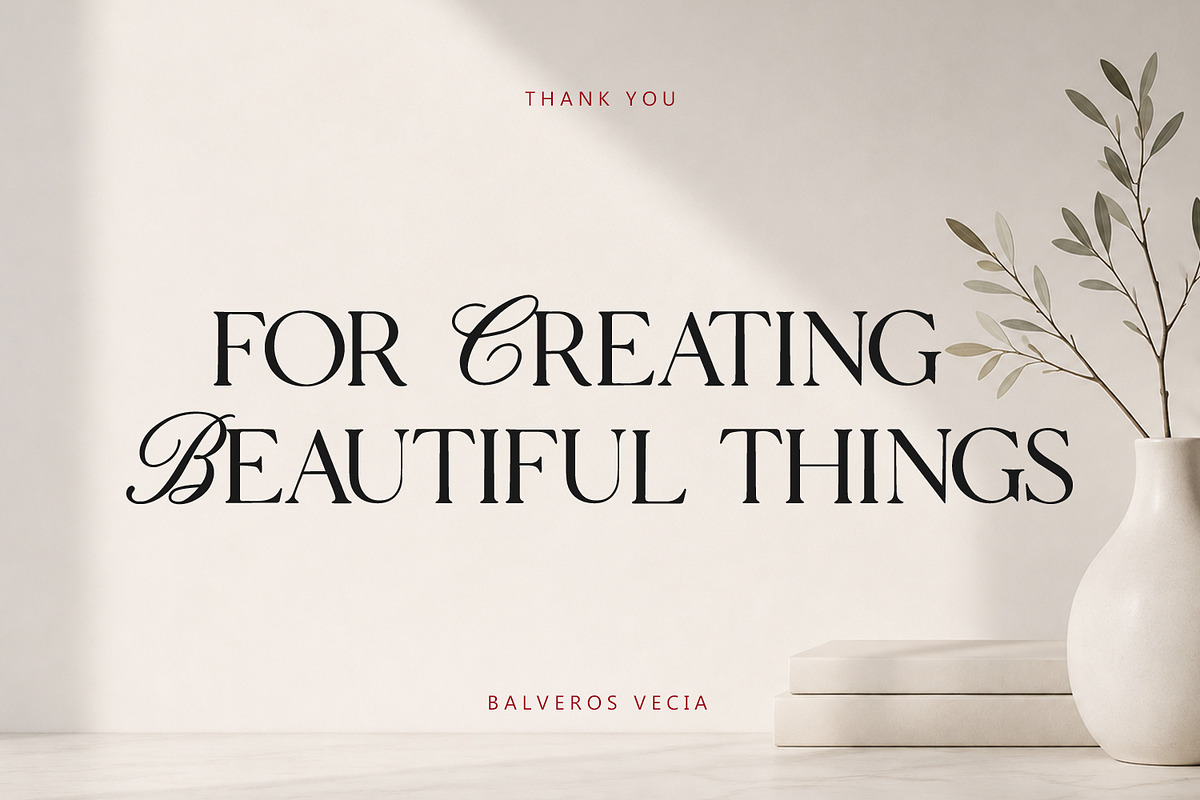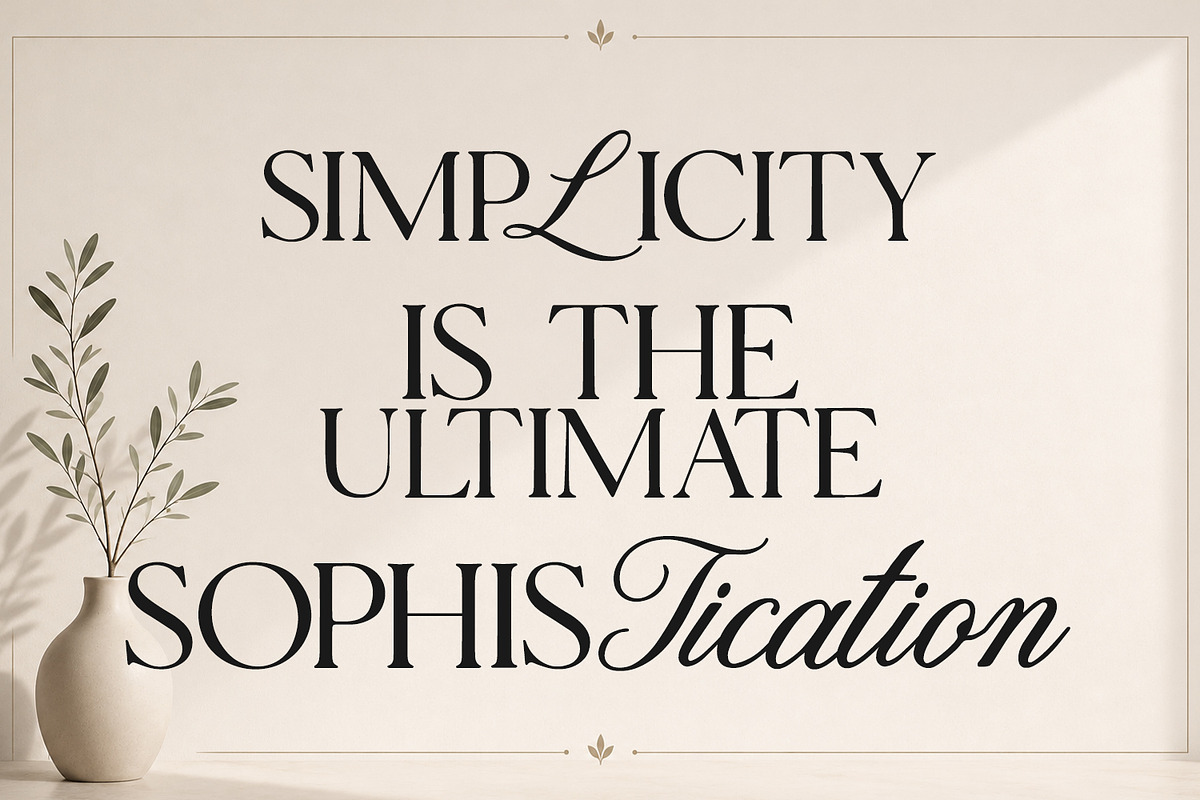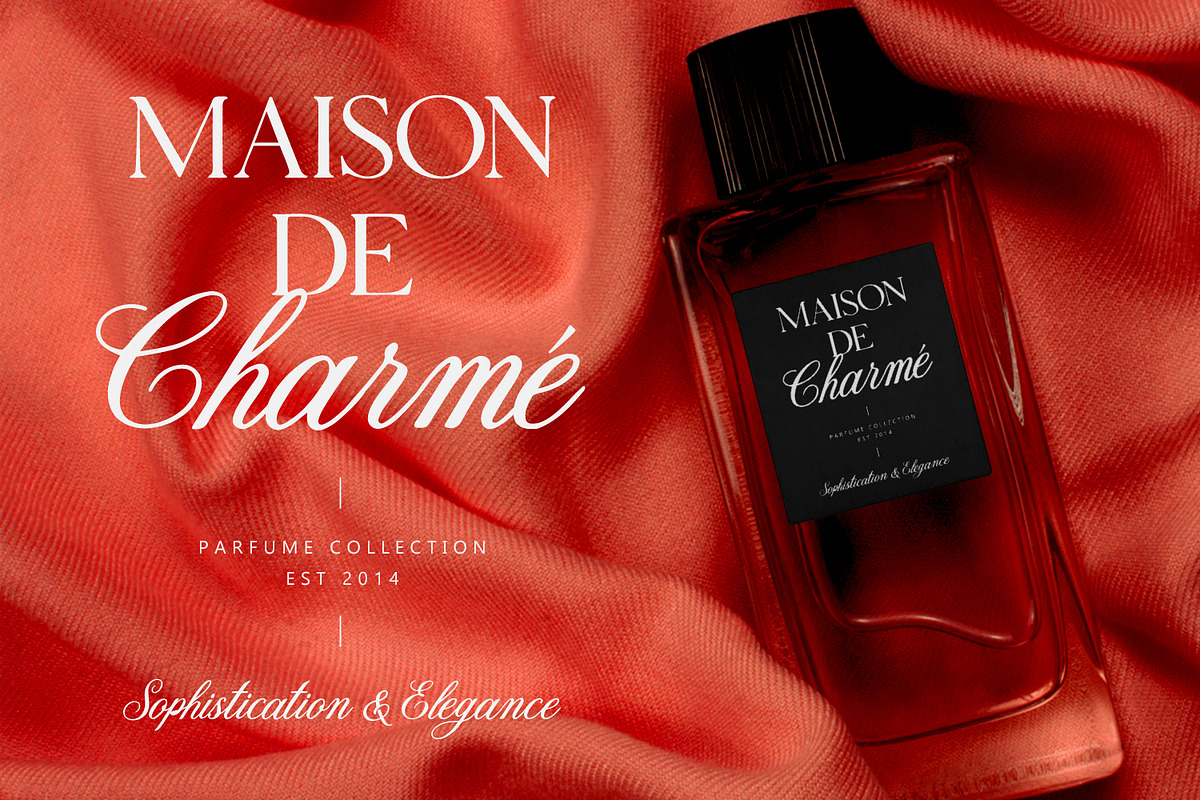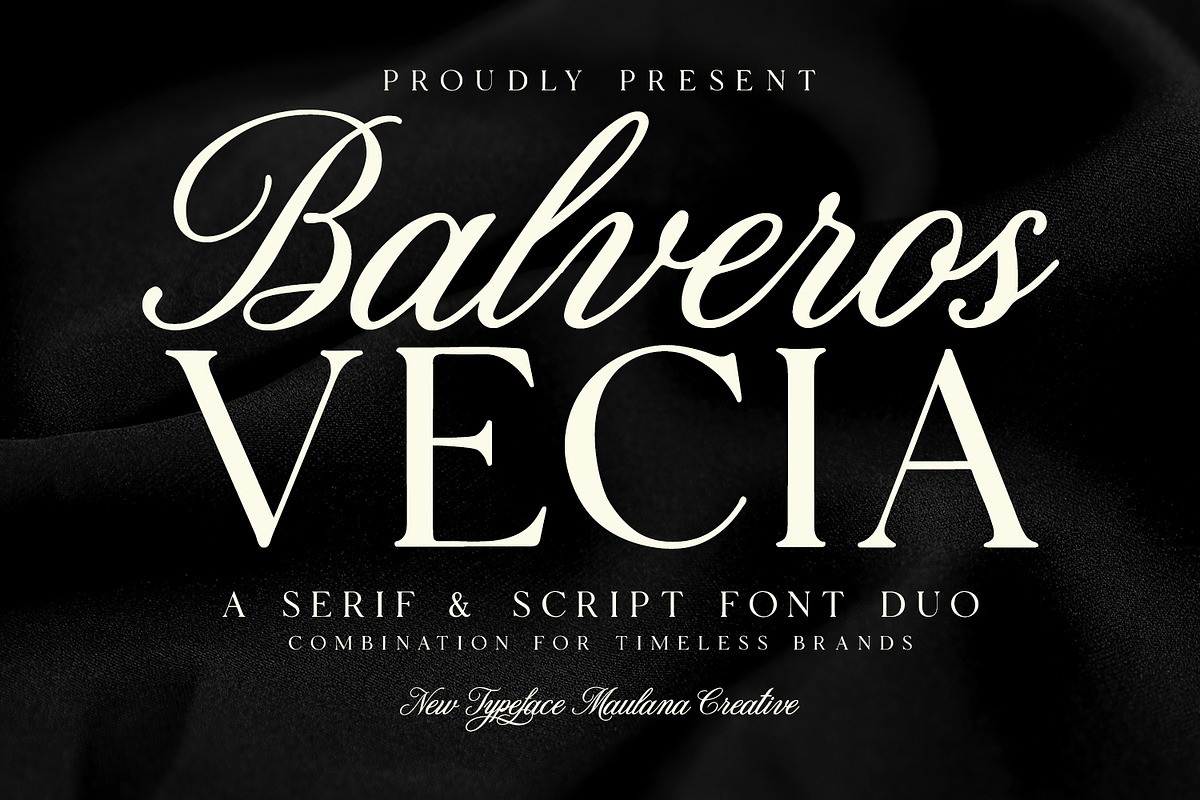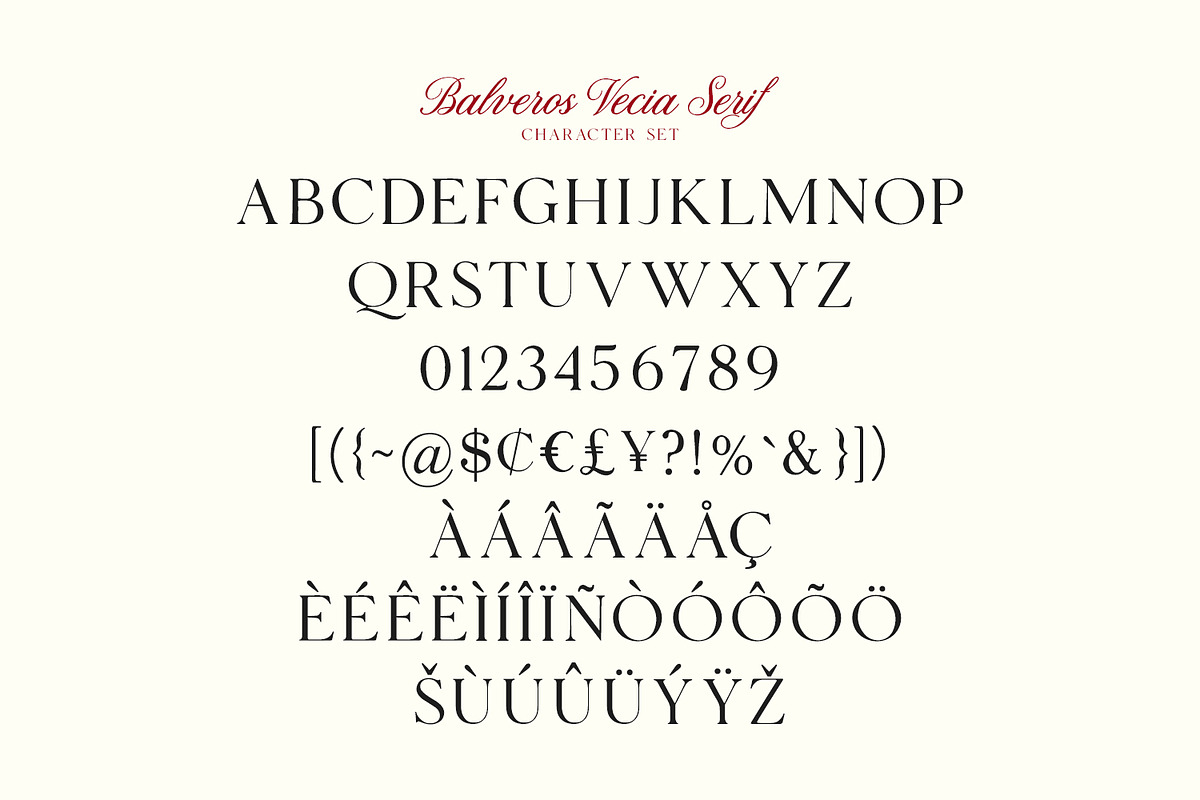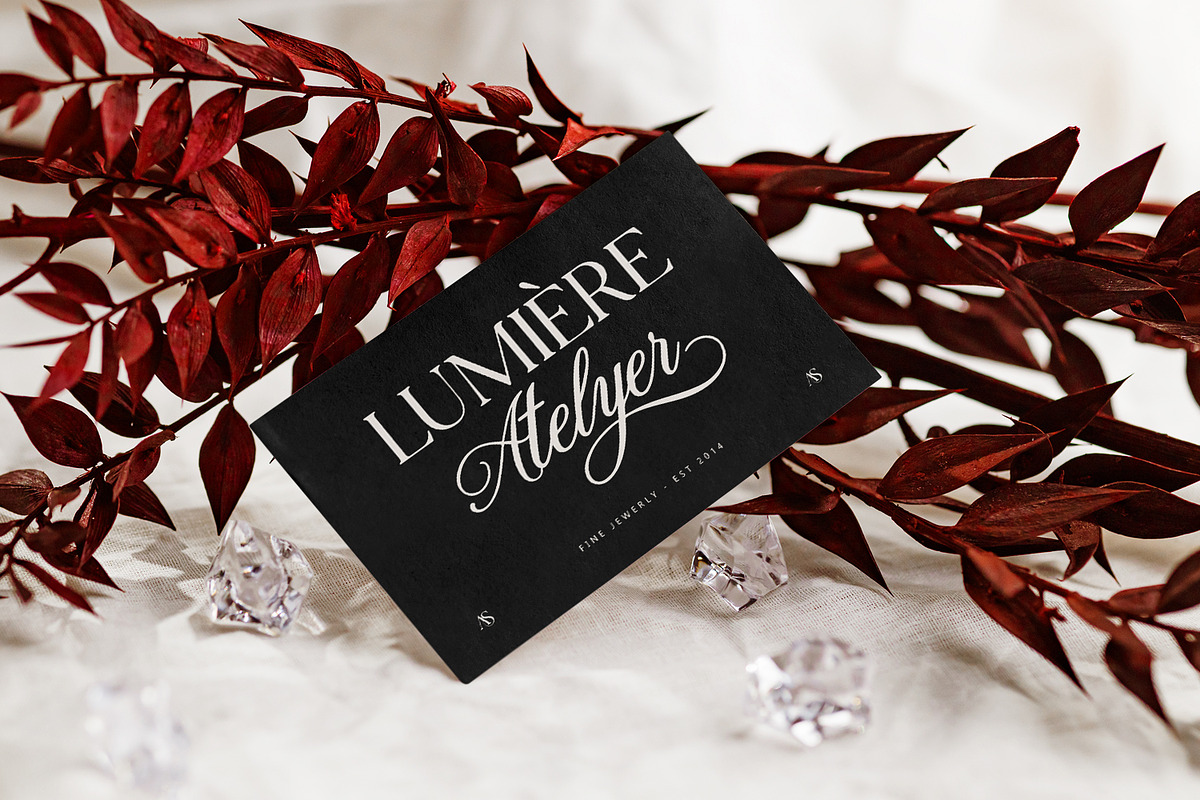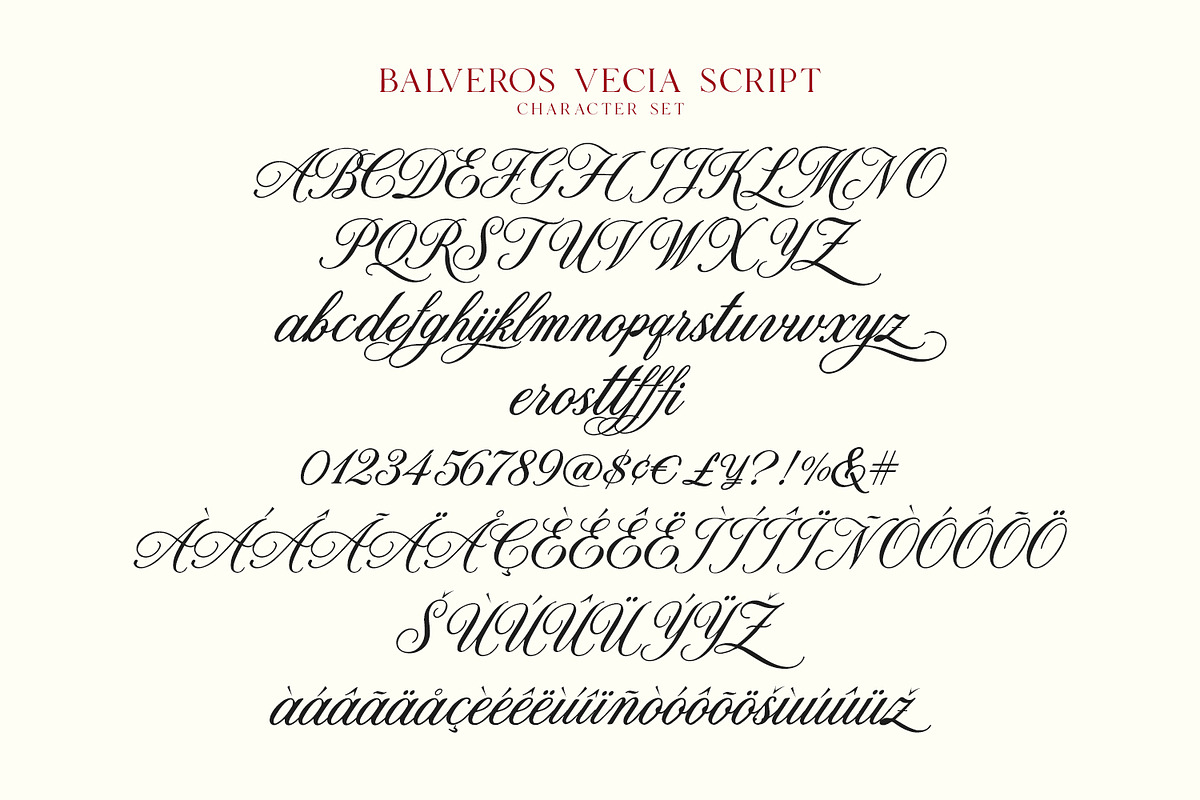
Balveros Vecia Font Duo
Balveros Vecia is a sophisticated font duo that pairs a refined, high-contrast serif typeface with a graceful, flowing calligraphic script. Designed to work in perfect harmony, the clean structure of the serif provides a modern, high-end feel, while the sweeping curves and elegant swashes of the script introduce a touch of warmth and artistry. This pairing offers complete creative versatility, allowing for striking typography combinations that immediately command attention.
Ideal for high-end brand identities, luxury product packaging, editorial layouts, and event stationery, this font duo brings an aura of timeless prestige to any creative project. The comprehensive character set includes full multilingual support, numerals, punctuation, and decorative alternates, making it an essential typographic tool for creating memorable, polished aesthetics across various digital and visual media.
- Alternate and ligature for a natural handwriting flow